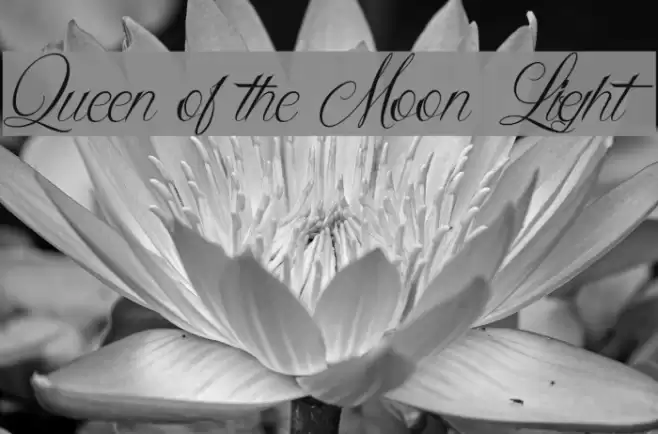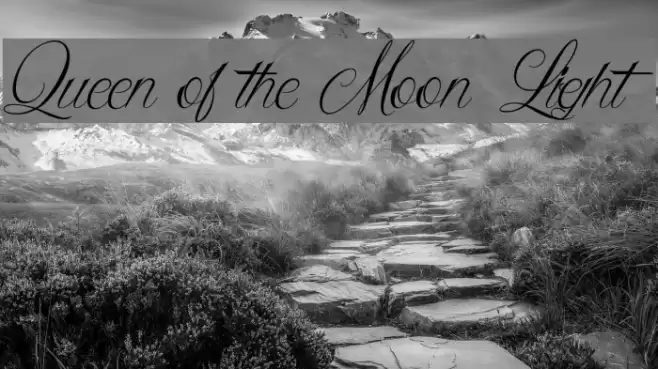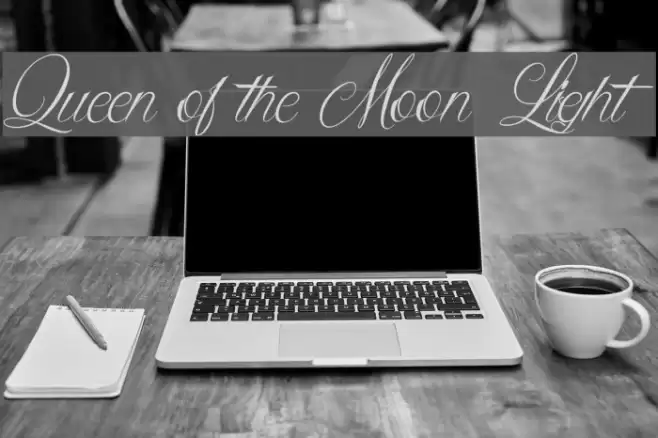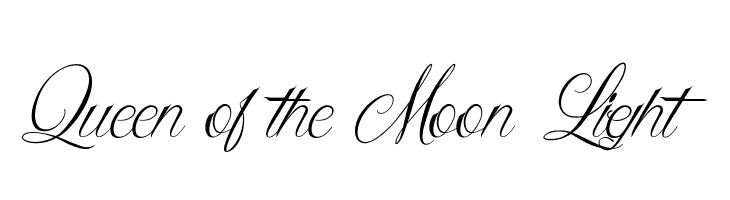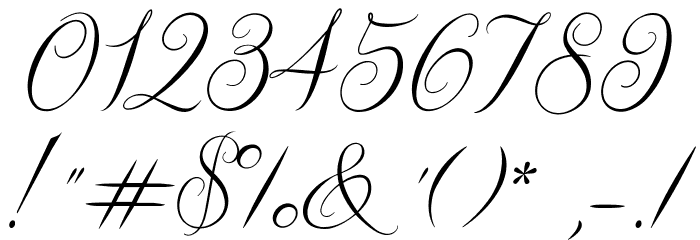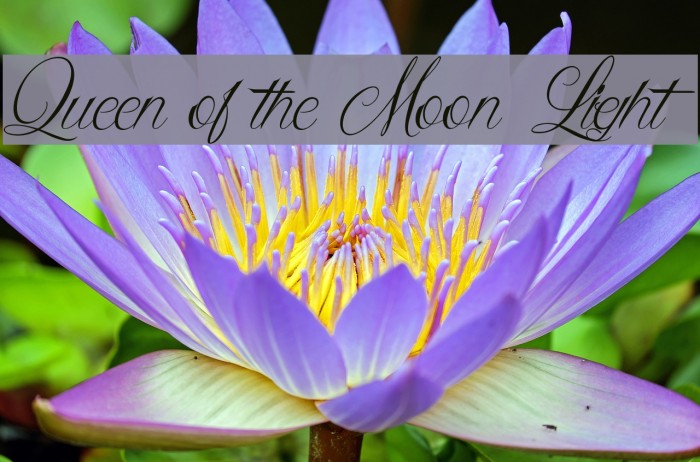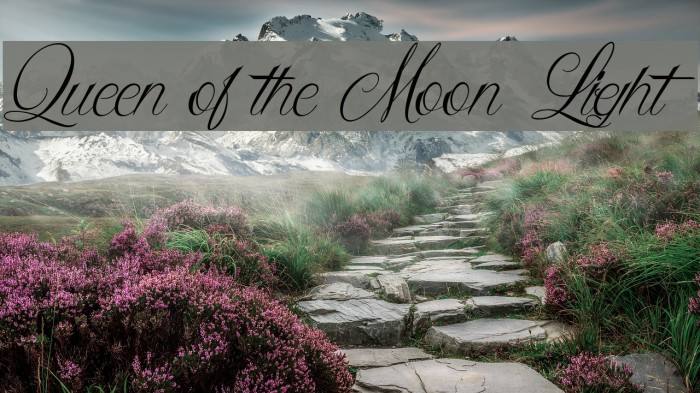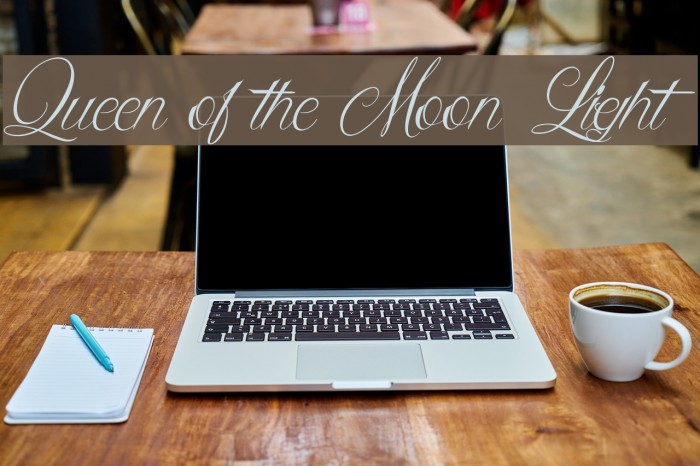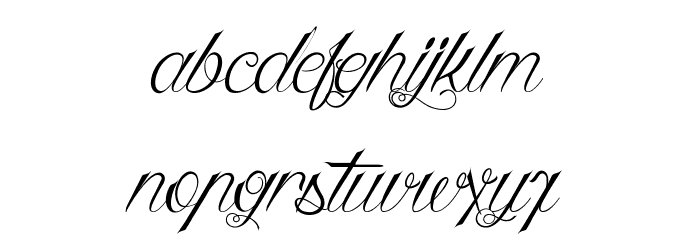
Queen of the Moon Light Font
Queen of the Moon Light Description
This elegant script font features a flowing, cursive style with intricate loops and swashes that give it a sophisticated and ornate appearance. The uppercase letters are particularly elaborate, with decorative flourishes that extend beyond the baseline and cap height, creating a sense of movement and grace. The lowercase letters maintain a consistent style, with smooth, connected strokes that enhance readability while retaining the font's decorative nature. The numerals are equally stylish, with a uniform height and distinctive curves that align with the overall aesthetic. Special characters are thoughtfully designed, complementing the alphabet with similar flourishes and loops. This font exudes a sense of luxury and refinement, making it ideal for formal invitations, branding, and other high-end design projects.
An elegant, flowing script font with intricate loops and swashes, perfect for formal and luxurious designs from Uncategorized fonts.